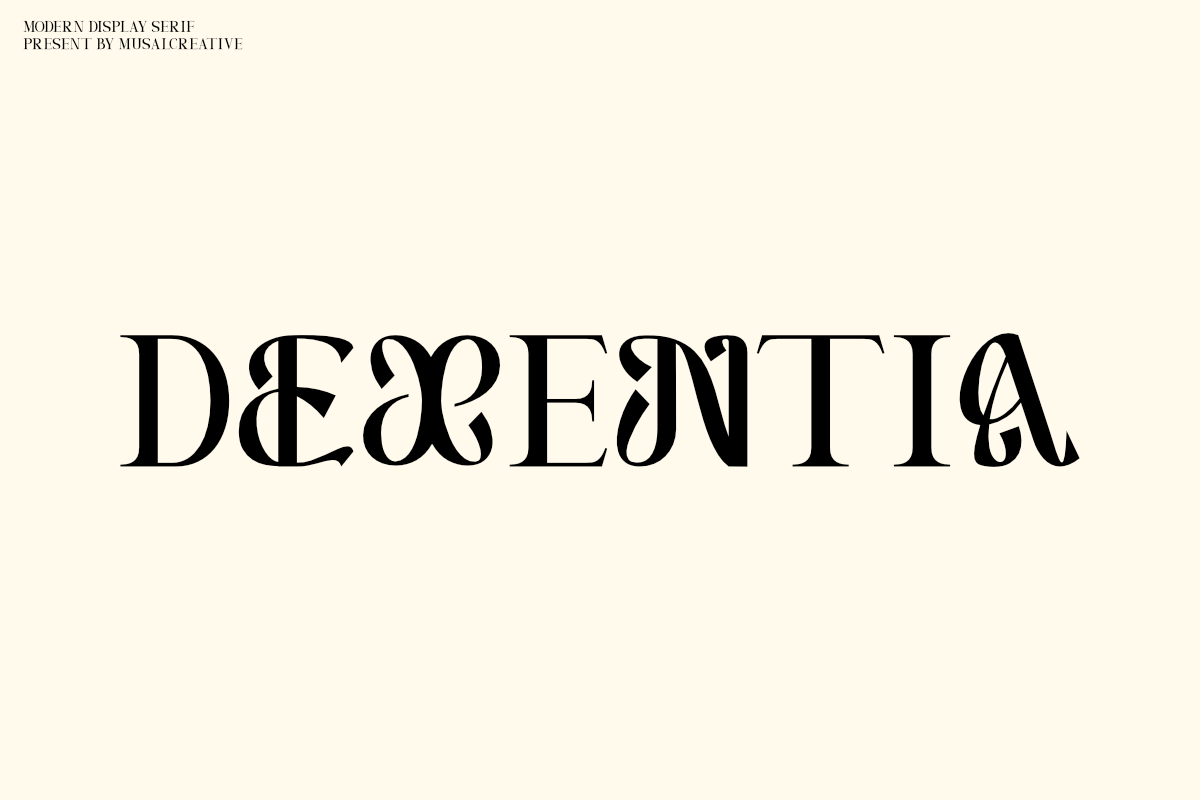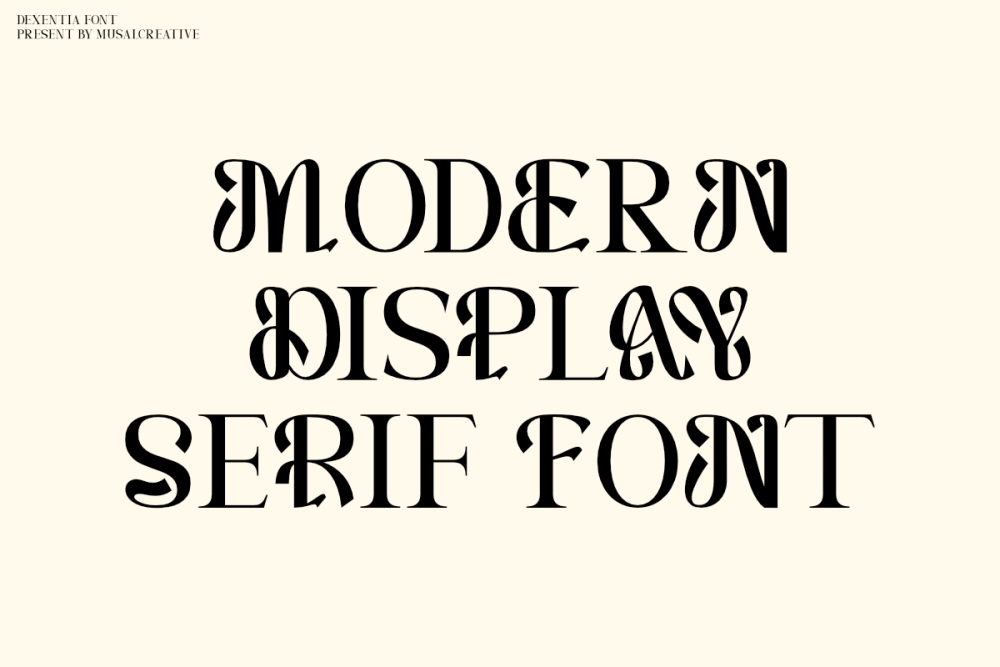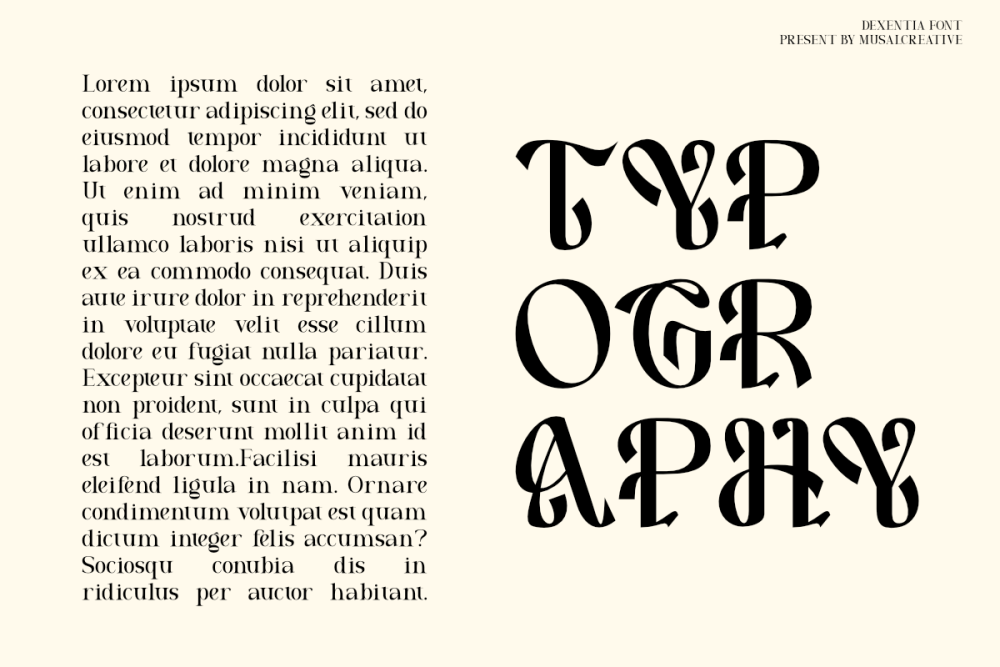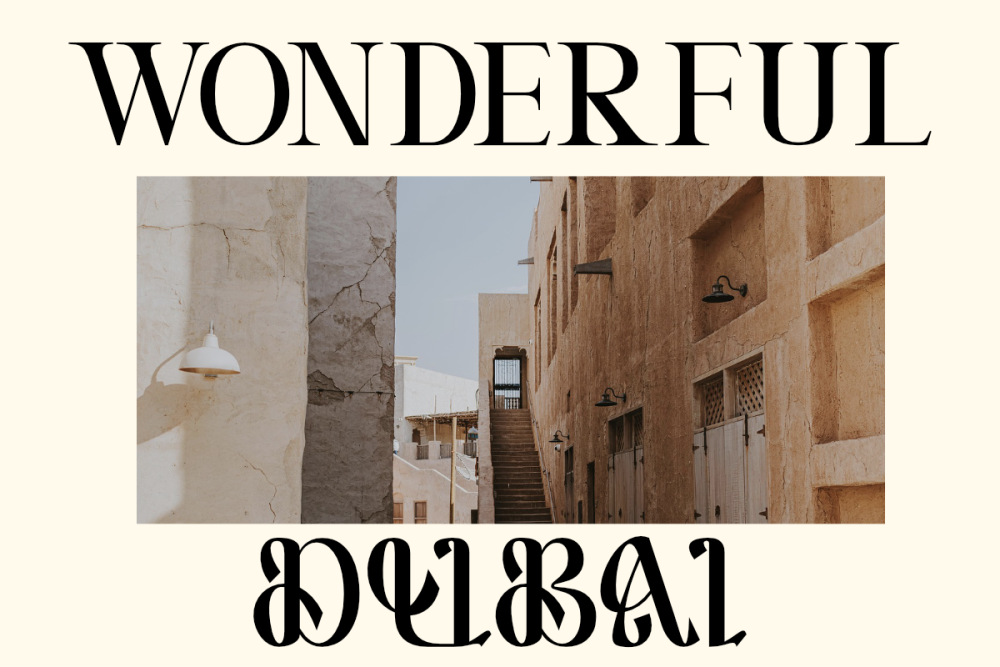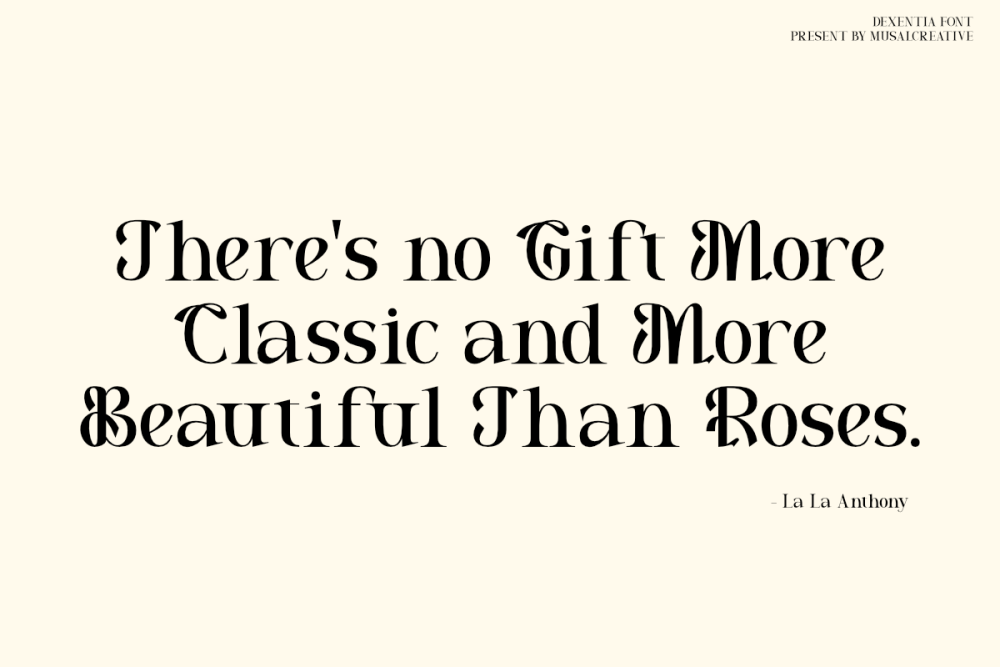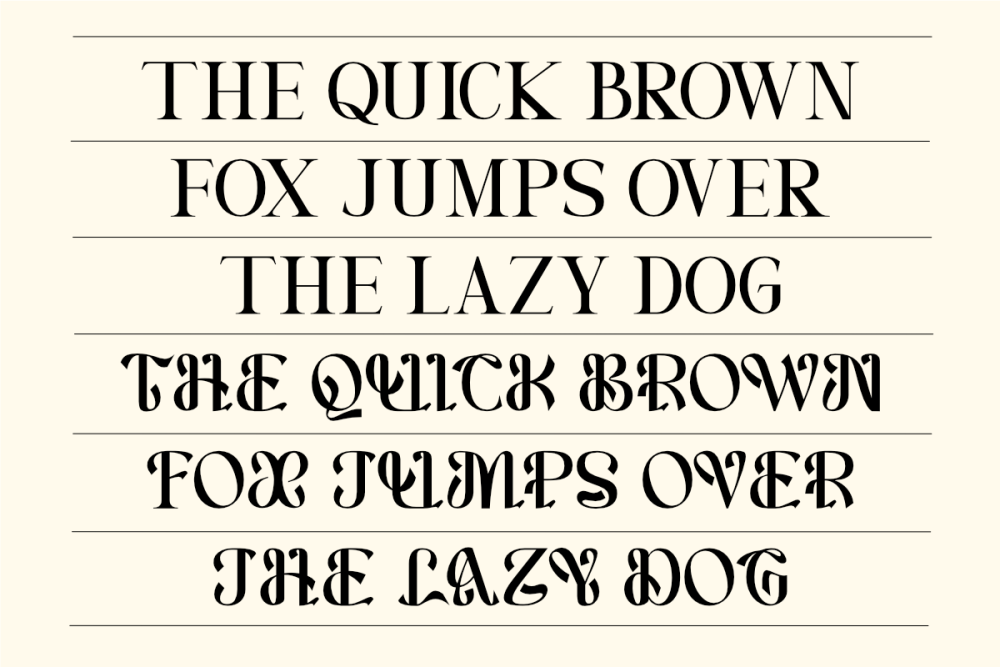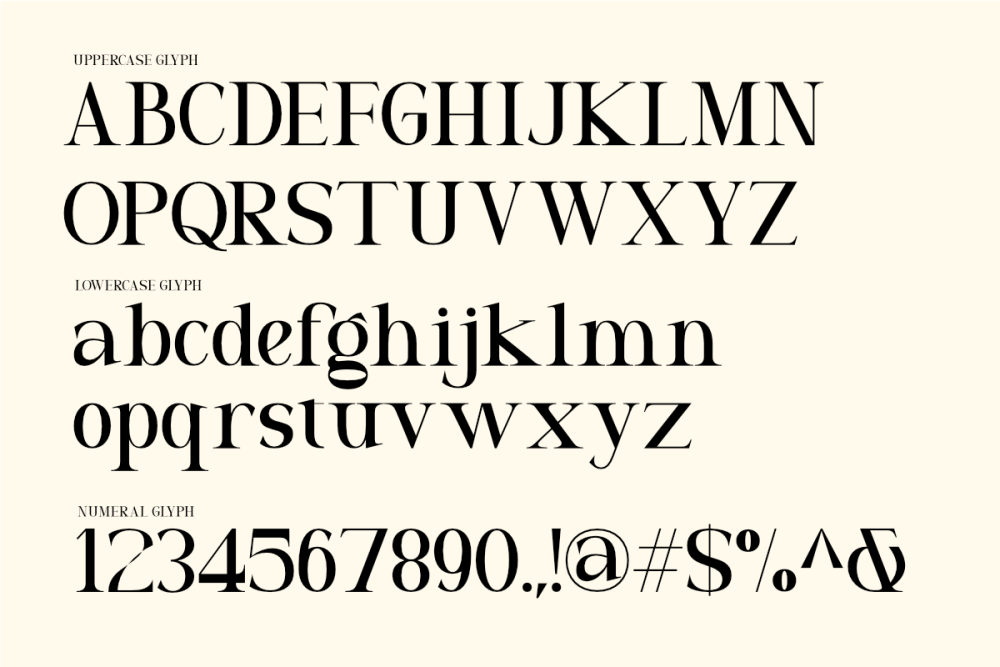
Dexentia
Dexentia is a refined modern serif that blends the elegance of classic typography with a bold, contemporary edge. Inspired by blackletter aesthetics yet infused with sleek, modern details, this font offers a distinctive style perfect for editorials, fashion branding, luxury designs, and Y2K-inspired visuals.
With its elegant serifs, subtle retro feel, and versatile letterforms, Dexentia captures the perfect balance between vintage charm and modern sophistication. The addition of unique alternates provides extra flexibility, making it an ideal choice for magazines, high-end packaging, and statement typography.
Perfect for:
✔ Fashion & luxury branding
✔ Magazine & editorial layouts
✔ Retro & Y2K-inspired designs
✔ Modern blackletter aesthetics with a refined touch
Whether you’re creating a bold statement piece or an elegant design, Dexentia delivers timeless beauty with a modern twist.